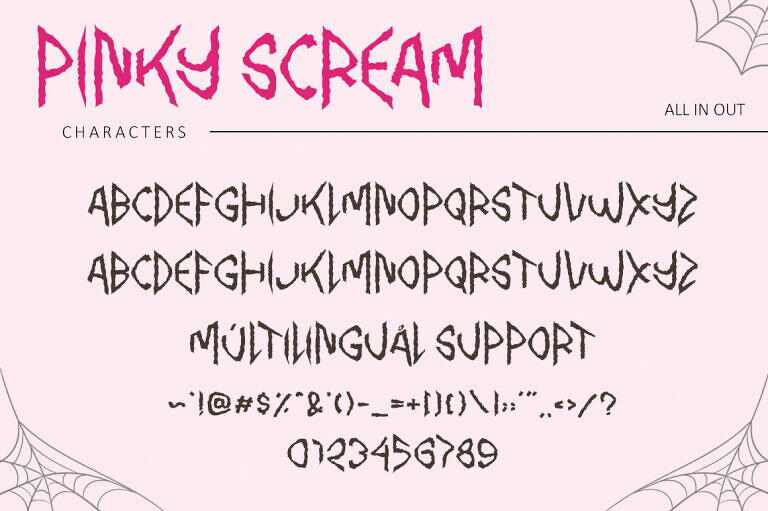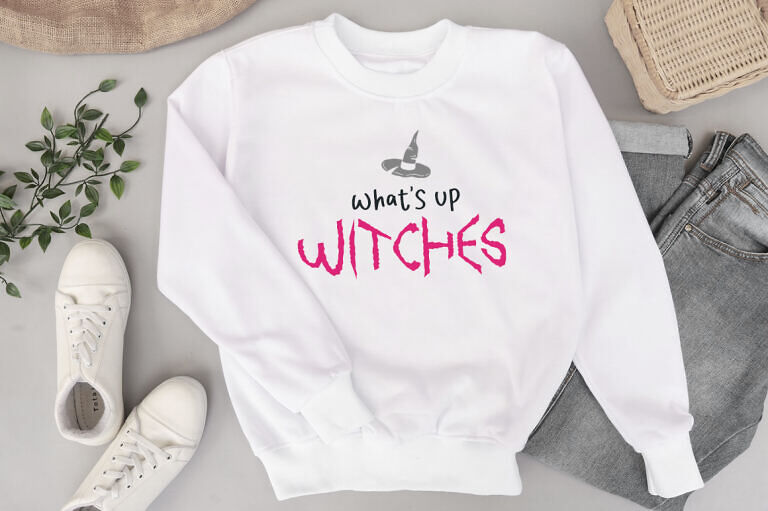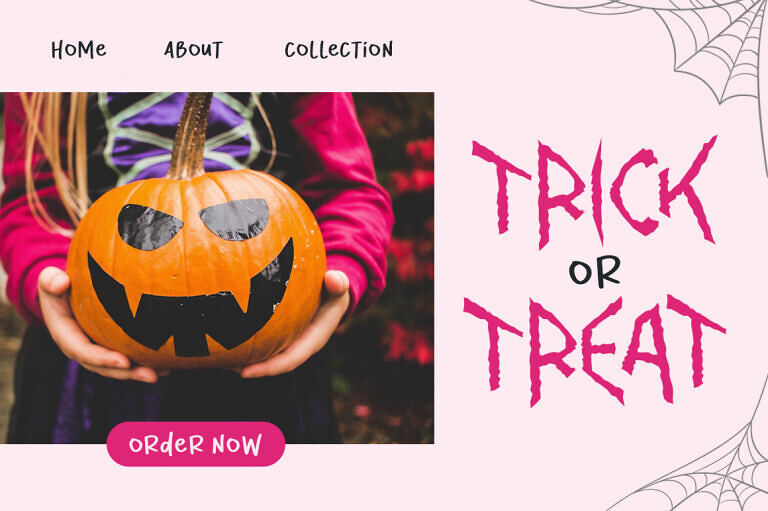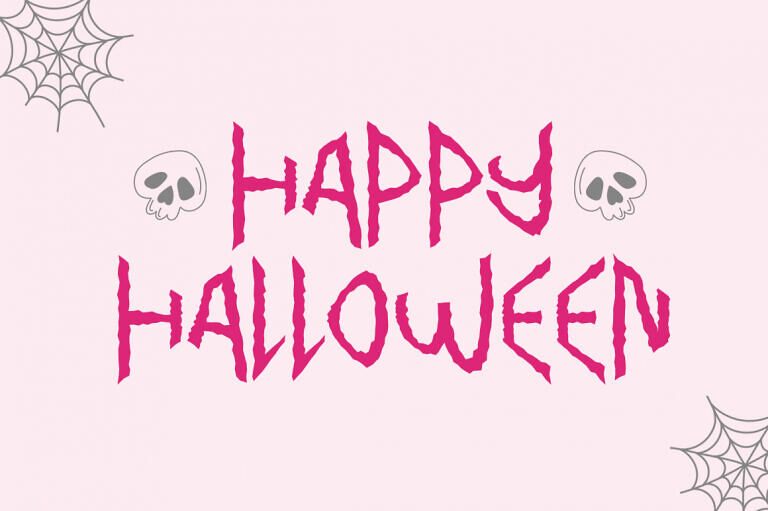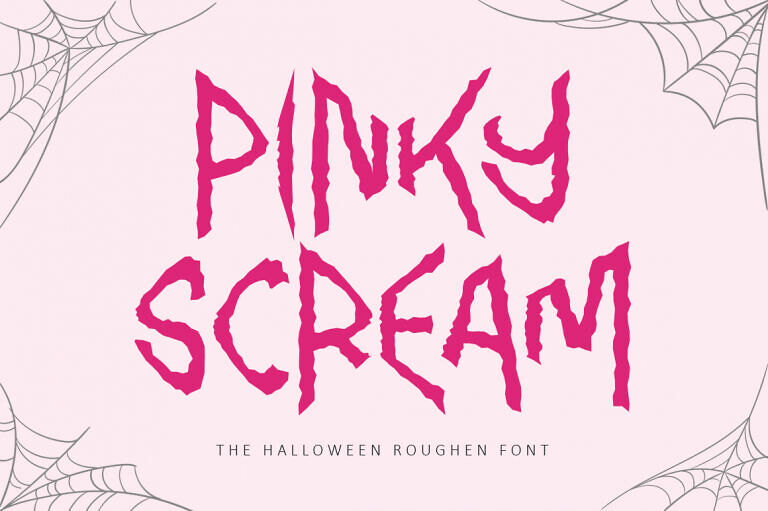
Pinky Scream Font
Pinky Scream is a unique display font that combines coolness with a spooky vibe, making it perfect for Halloween crafts. Its versatility allows you to elevate your designs and take them to new heights, with the only constraint being your own creativity.
Designed by: Illushvara Design